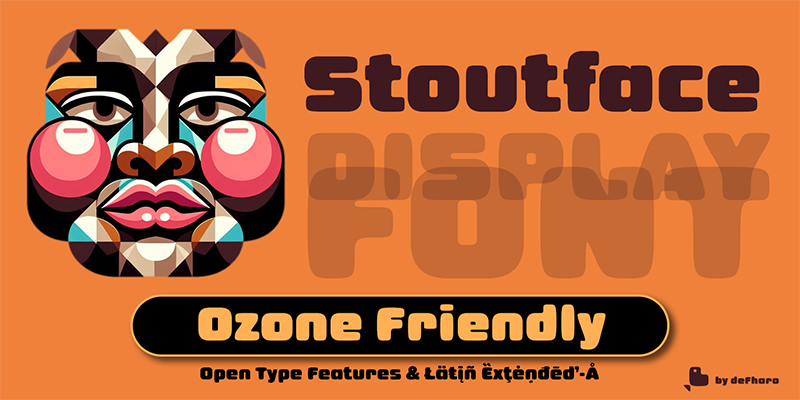
Font name: | Stoutface |
Stoutface Regular is a very thick sans serif typeface, combining the best of modern design and the feel of times gone by. Its thick, somewhat unfocused style gives text a rounded, worn appearance, ideal for capturing attention. Its rounded shapes, the result of exceptional thickness and subtle wear, are perfect for large titles and any text that needs to stand out, thanks to its precise adjustment of spacing and shapes that guarantee clarity and ease of reading. Additionally, they offer many customization options, including variants of letters, numbers, and monetary symbols. ========================= DOWNLOAD FULL VERSIONS & LICENSES: https://defharo.com/fonts/stoutface/ ========================= https://www.paypal.com/paypalme/defharo |